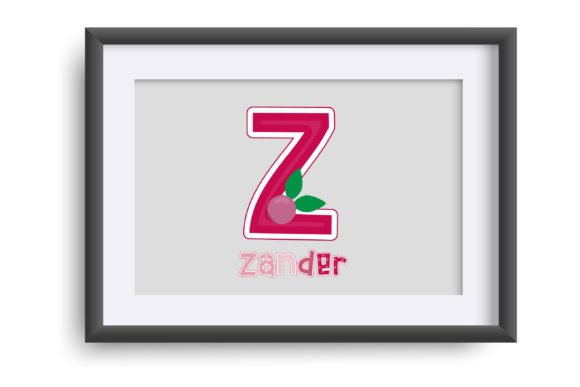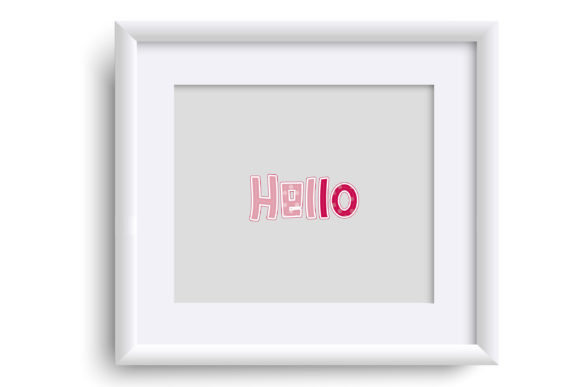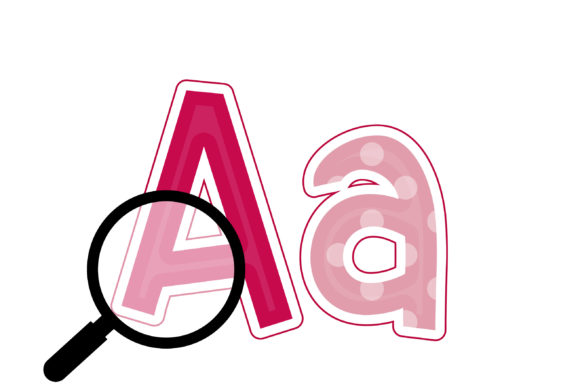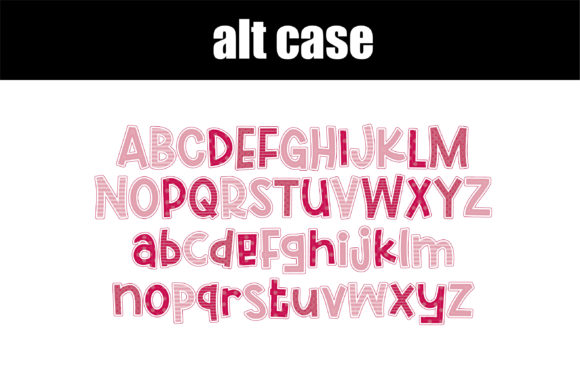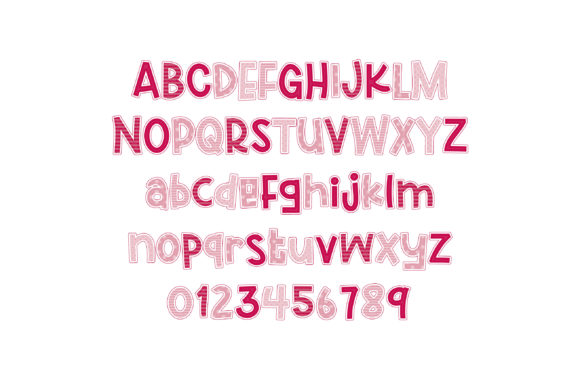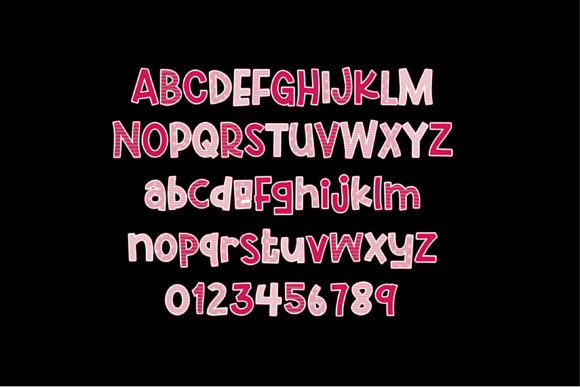
Introduction to Love Berries Font
Have you ever stumbled upon the perfect font while working on a creative project and felt like it’s the missing piece that brings everything together? That’s exactly what happened to many designers when they discovered the Love Berries Font. This enchanting font is more than just a pretty face – it’s a game-changer for any design project that requires a touch of whimsy and romance.
With its unique red and pink color palette and intricate, patterned lettering, the Love Berries Font is a design resource that’s sure to elevate any project. Whether you’re working on a wedding invitation, a greeting card, or a social media graphic, this high-quality font is the perfect addition to take your design to the next level. And the best part? It’s free to download and compatible with a range of design software, making it a valuable resource for any designer looking to add a touch of personality to their work.
Key Features of Love Berries Font
- High-quality design resource with a beautiful, whimsical style perfect for creative projects.
- Features a unique and playful design, ideal for adding a touch of personality to your designs.
- Perfect for designers, artists, and creatives looking for a distinctive and eye-catching font for their next project.
Honest Review: Love Berries Font
One of the standout features of the Love Berries Font is its high quality and attention to detail. The font is well-designed and looks great on both light and dark backgrounds. ✨ In fact, the transparent background makes it easy to use in a variety of design scenarios.
- Great for creative projects
Overall, I was impressed with the Love Berries Font and would recommend it to designers looking for a free, high-quality design resource for their next creative project.
Tips for Getting the Most Out of Love Berries Font
Use the Love Berries Font in combination with other design elements to create a visually appealing design. Experiment with different font sizes, colors, and styles to find the perfect look for your creative project. You can also use the font in conjunction with other design resources, such as graphics and images, to add depth and interest to your design.
The Love Berries Font is perfect for a variety of creative projects, including wedding invitations, baby shower invitations, and other special occasion designs. You can also use the font in business projects, such as logos and branding materials, to add a touch of elegance and sophistication.